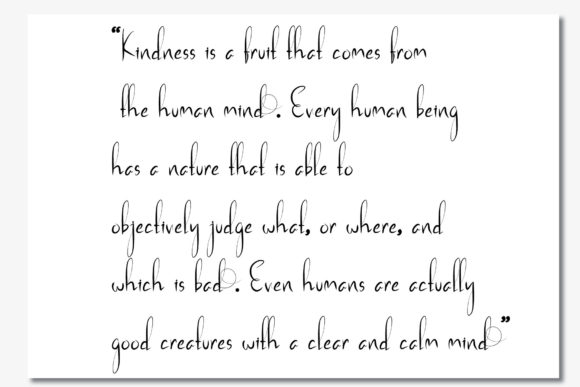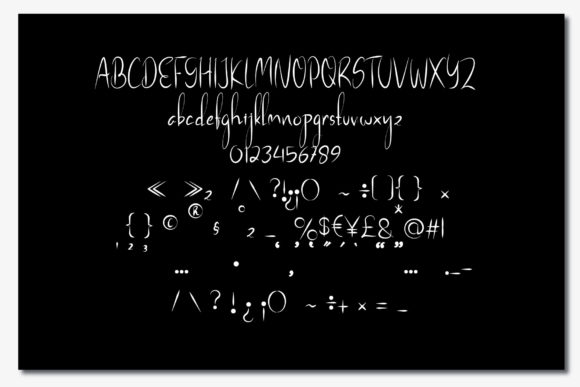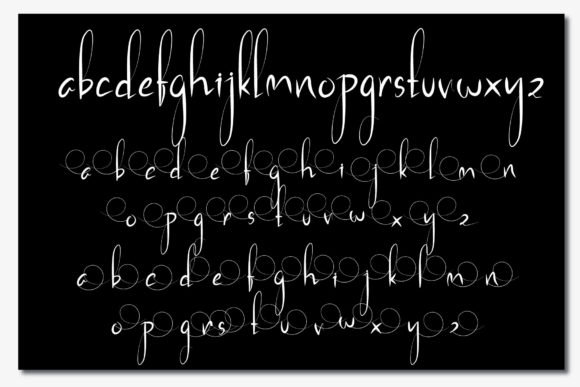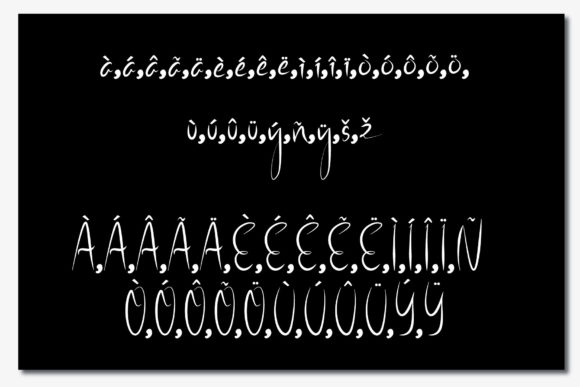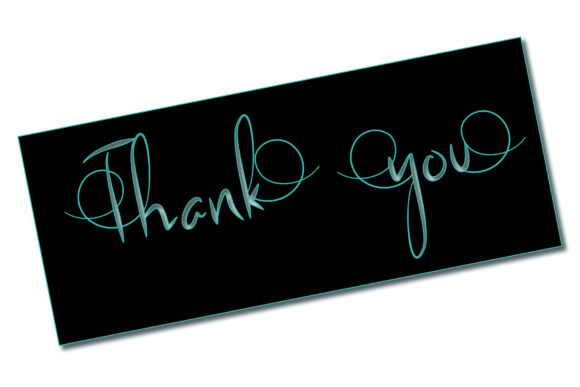
Paragraph Font
Paragraph is an exquisitely elegant and flowing handwritten font that exudes sophistication and charm. Its graceful curves and balanced strokes create a sense of harmony and beauty that make it a perfect choice for a wide range of designs.
In wedding invitations, Paragraph sets the tone for a refined and romantic celebration. Its fluid and graceful appearance adds a touch of elegance and sophistication, making the invitations feel special and memorable.
For thank you cards, Paragraph brings a heartfelt and personal touch to your expressions of gratitude. Its smooth lines and handwritten look convey sincerity and appreciation, making recipients feel truly valued.
In quotes and greeting cards, Paragraph adds a touch of artistry and creativity. Its stunning alternates and glyphs offer versatility and allow you to create unique and captivating designs that stand out and leave a lasting impression.
Logos designed with Paragraph gain a touch of authenticity and handcrafted appeal. It can add a sense of warmth and approachability to brands, making them more relatable and appealing to their target audience.
Business cards featuring Paragraph create a memorable and professional impression. Its flowing and elegant style sets a sophisticated tone and leaves a positive impact on potential clients and partners.
Overall, Paragraph is a stunning and versatile handwritten font that enhances the beauty and impact of various designs. Its elegant and flowing appearance makes it suitable for a wide range of applications, from wedding invitations to business cards and everything in between. Embrace the elegance of Paragraph and let it elevate the beauty and sophistication of your creative projects.